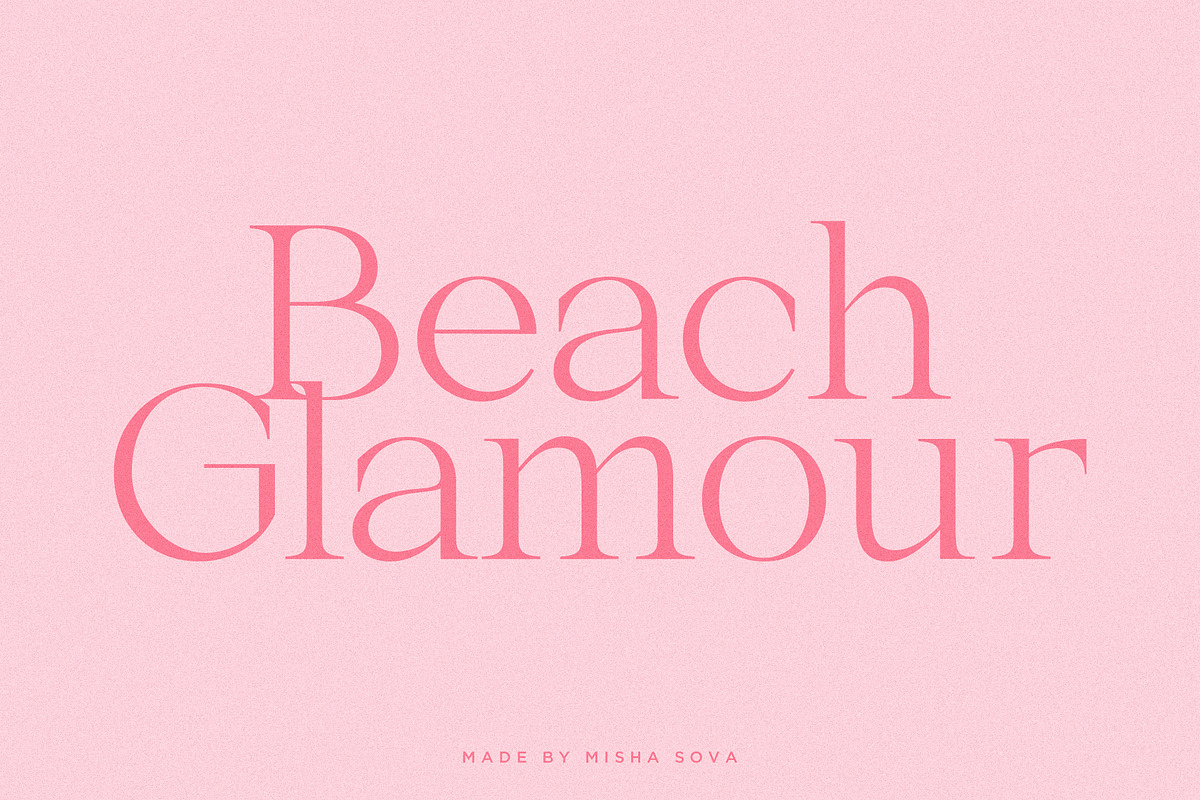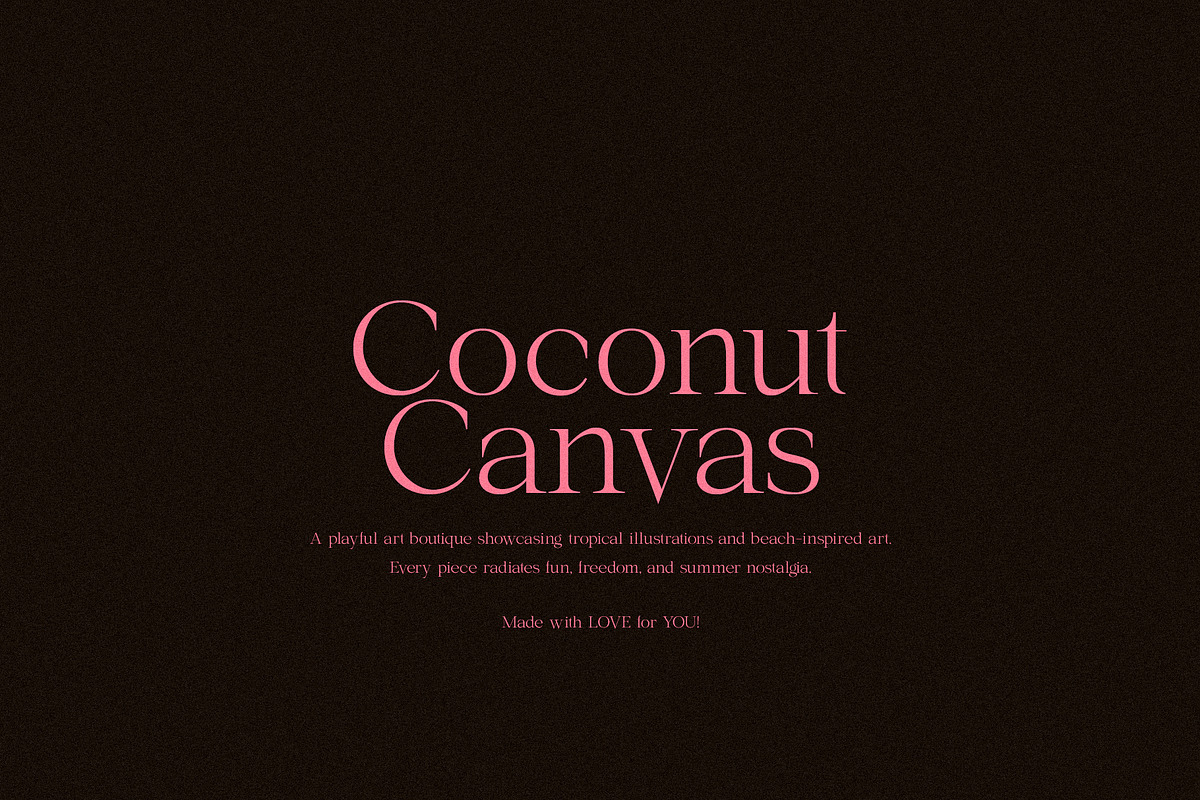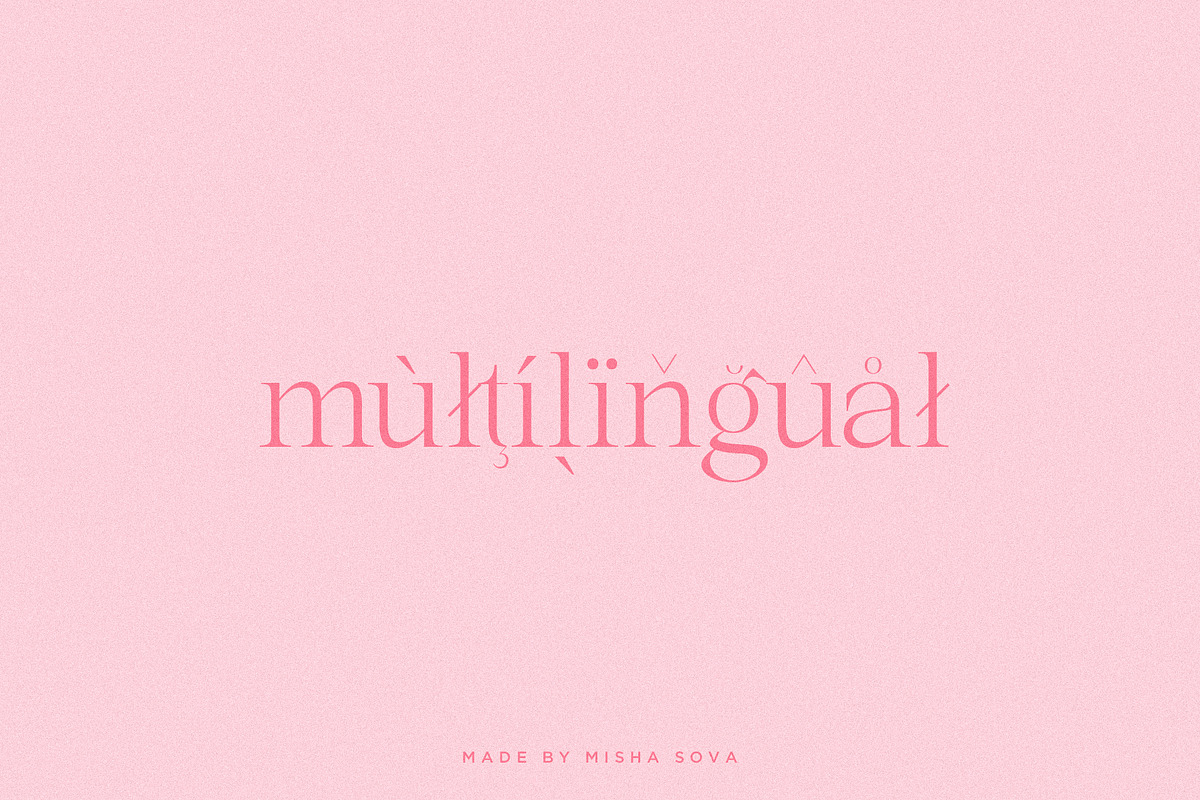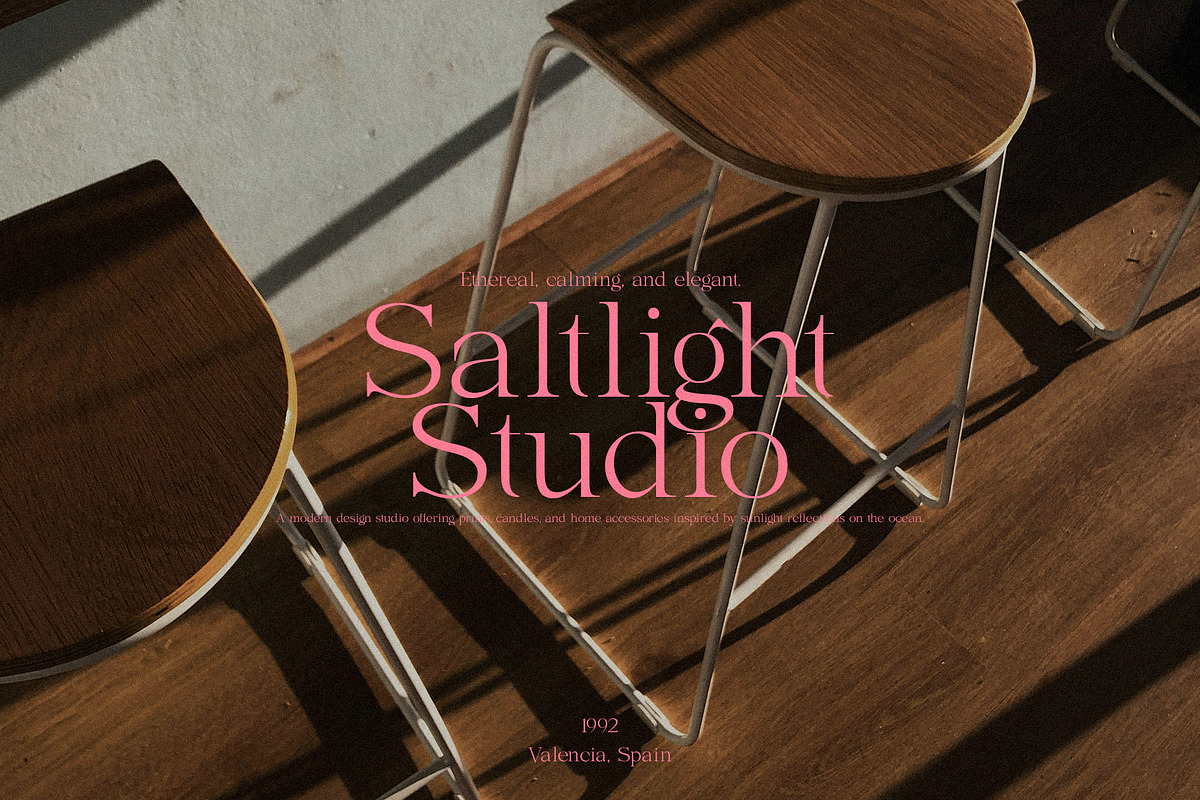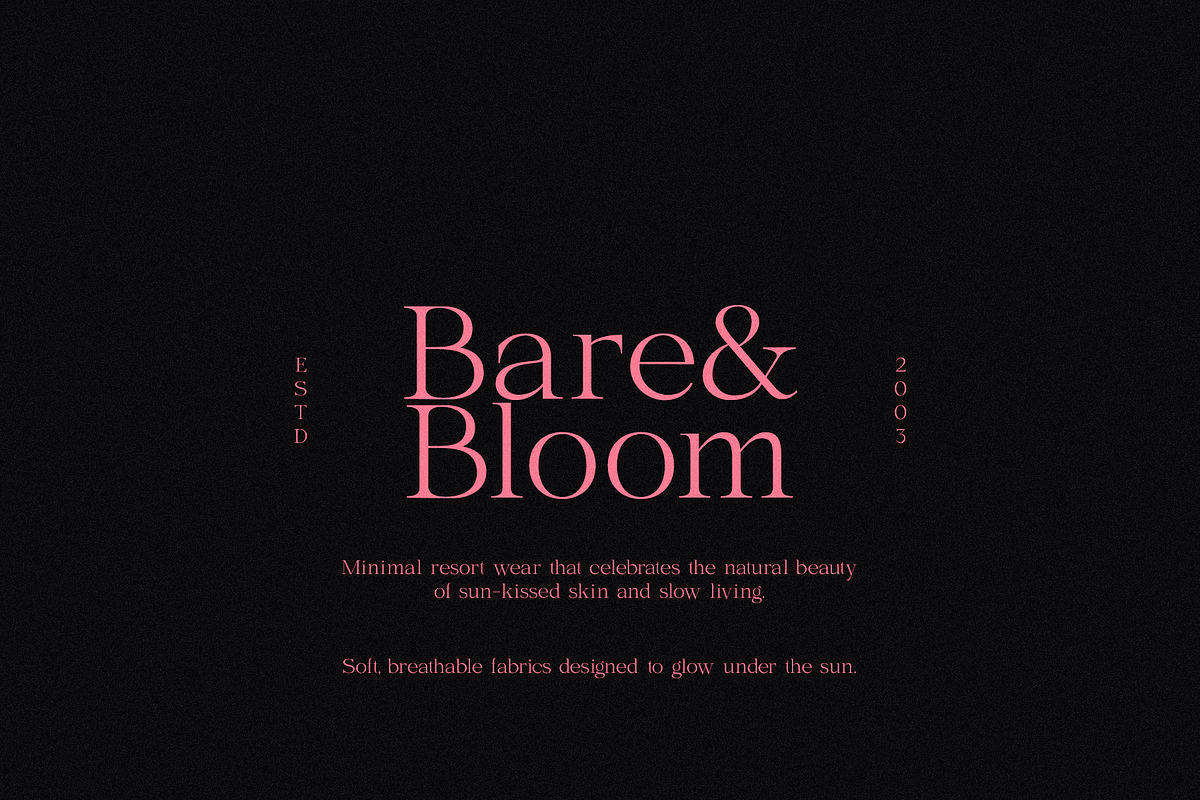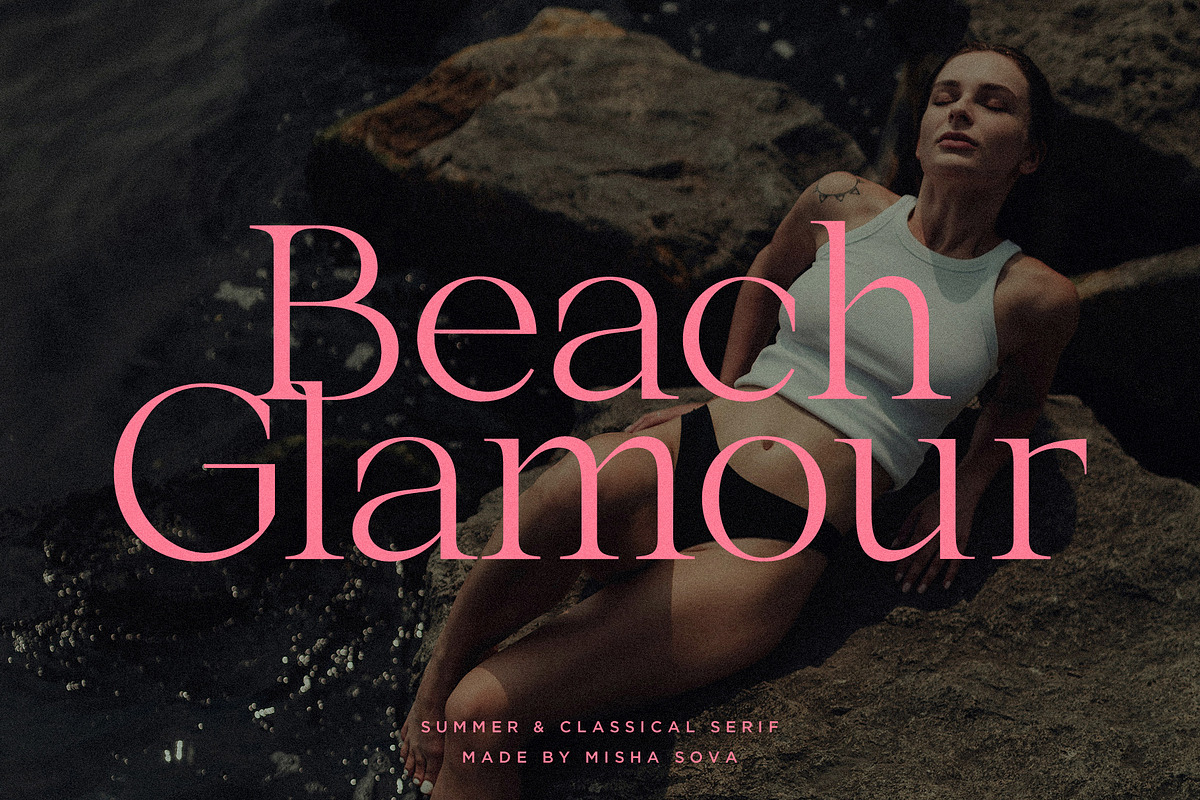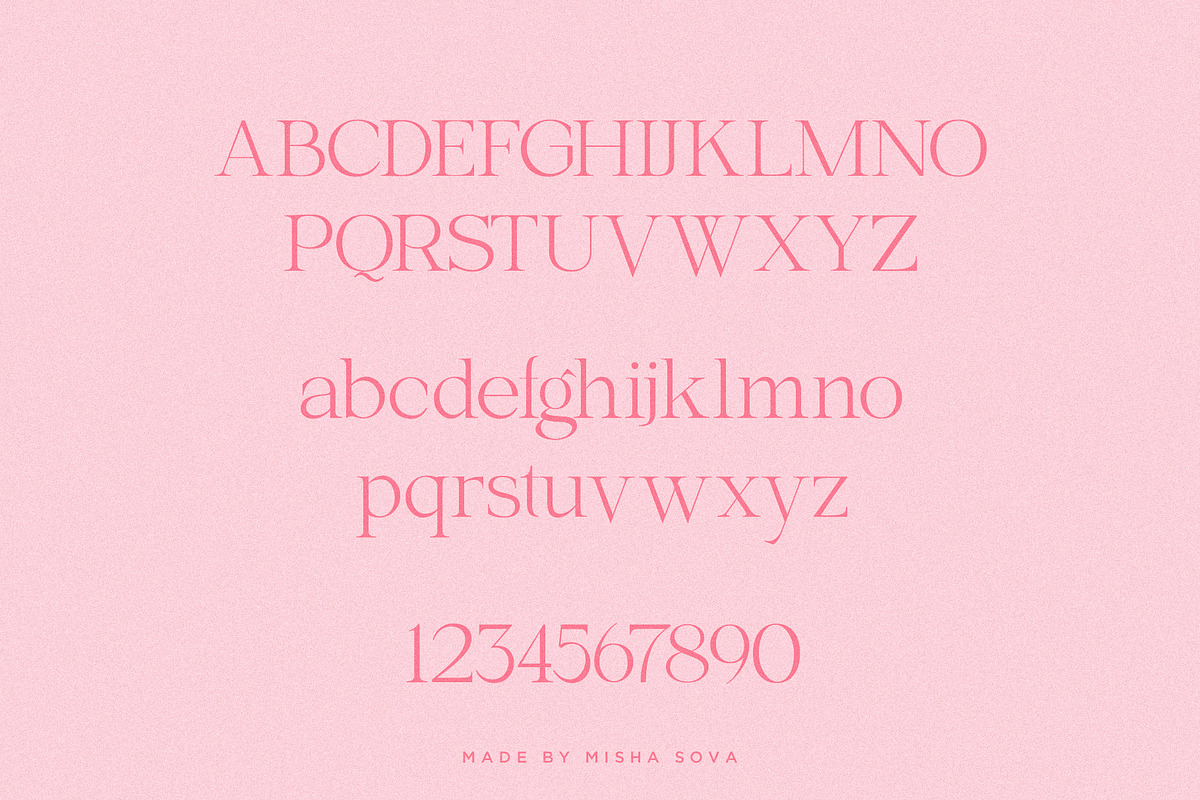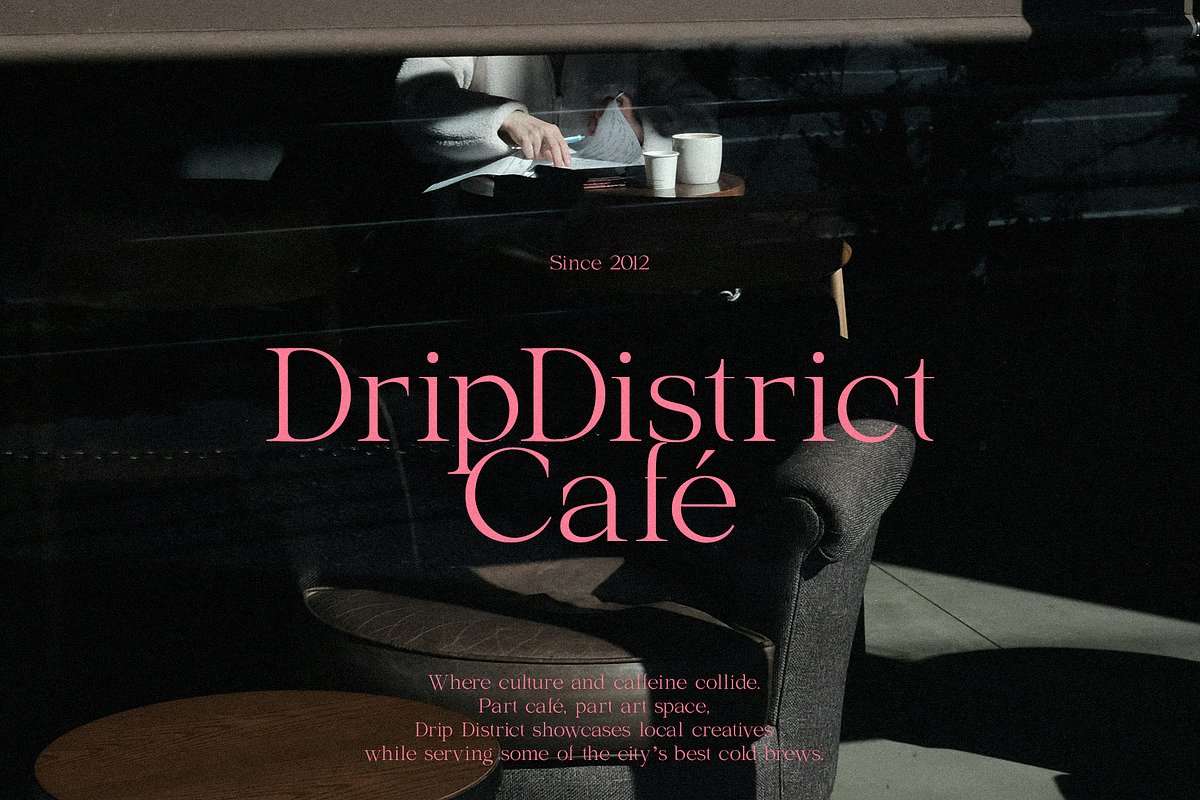
Beach Glamour - Summer Serif
Beach Glamour - Summer & Classical Serif by Misha Sova
Beach Glamour is the perfect fusion of effortless summer vibes and timeless elegance. With its soft, flowing serif fonts, this typeface evokes the warmth and sophistication of beachside resorts, evoking images of golden sunsets, chic coastal retreats, and the carefree spirit of a summer holiday. The classical serif detailing adds a touch of refinement, making it ideal for high-end fashion, luxury travel, or any brand looking to blend modern leisure with classic appeal. Whether on a sleek beachfront boutique logo or a summer event invitation, Beach Glamour effortlessly radiates the essence of sunny sophistication.
Beach Glamour features:
- Letters
- More than 300 glyphs